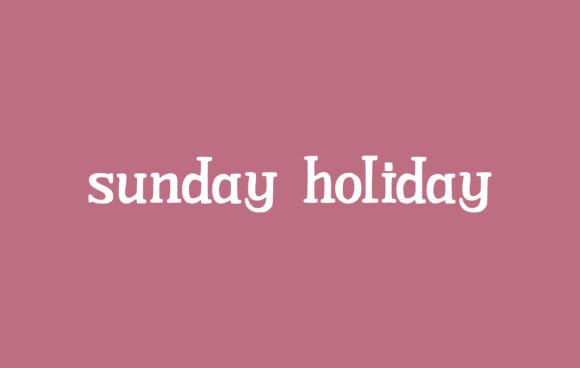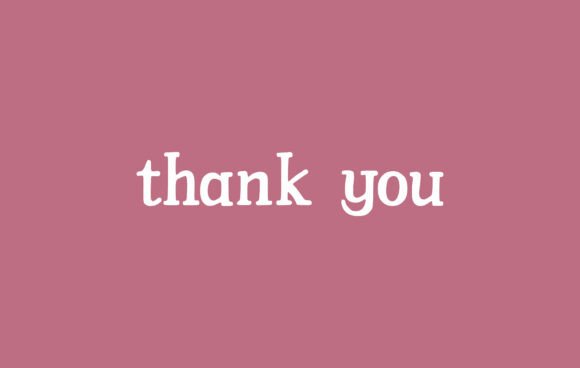
Introduction to Saint Font
Remember the moment when you’re working on a creative project, and the right font can elevate your design from good to great? For many designers, that moment is a game-changer. It’s the difference between a design that feels authentic and one that feels generic. And that’s exactly what Saint Font is all about – capturing the essence of handwritten elegance and bringing it to life in a digital format.
With its romantic touch and expertly crafted design, Saint Font is a true favorite among designers. Whether you’re working on a magazine headline, social media post, or wedding invitation, this font has the potential to take your creative ideas to the next level. And the best part? It’s legible and versatile, making it perfect for body text as well as titles.
Key Features of Saint Font
- Unique, stylish design ideal for a variety of applications, including branding and publishing
Honest Review: Saint Font
As a designer, I’m always on the lookout for high-quality design resources that can elevate my creative projects. Recently, I stumbled upon the Saint Font, and I must say, it’s been a game-changer for my work. ✨
- Customizable: The Saint Font is incredibly versatile, with a wide range of customization options that allow me to tailor it to my specific design needs.
- High-Quality: The font is crisp, clean, and features a beautiful, transparent background that adds a touch of sophistication to any project.
While the Saint Font is an excellent design resource, there are a few limitations to consider. ⚠️
- Limited Ligatures: The font doesn’t have as many ligatures as I’d like, which can sometimes make it difficult to achieve the perfect aesthetic.
- No Bold or Italic Versions: Unfortunately, the font only comes in regular weight, which can be a drawback for projects that require a bold or italic font.
Overall, I’m thoroughly impressed with the Saint Font. Its high quality, versatility, and free download make it an excellent addition to any designer’s arsenal. While it has some limitations, I believe it’s well worth the investment – especially for smaller design projects or personal creative endeavors.
Saint Font is a high-quality design resource perfect for any creative project. With its unique style and transparent background, it’s a great addition to any design.
Common Use Cases for Saint Font
Saint Font is perfect for use in creative projects such as logos, brochures, and social media graphics. Its unique style and transparent background make it a great addition to any design.